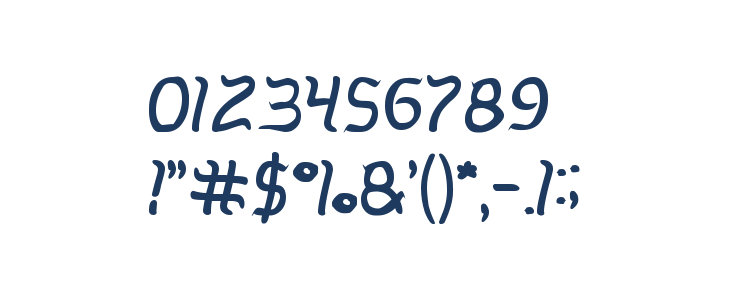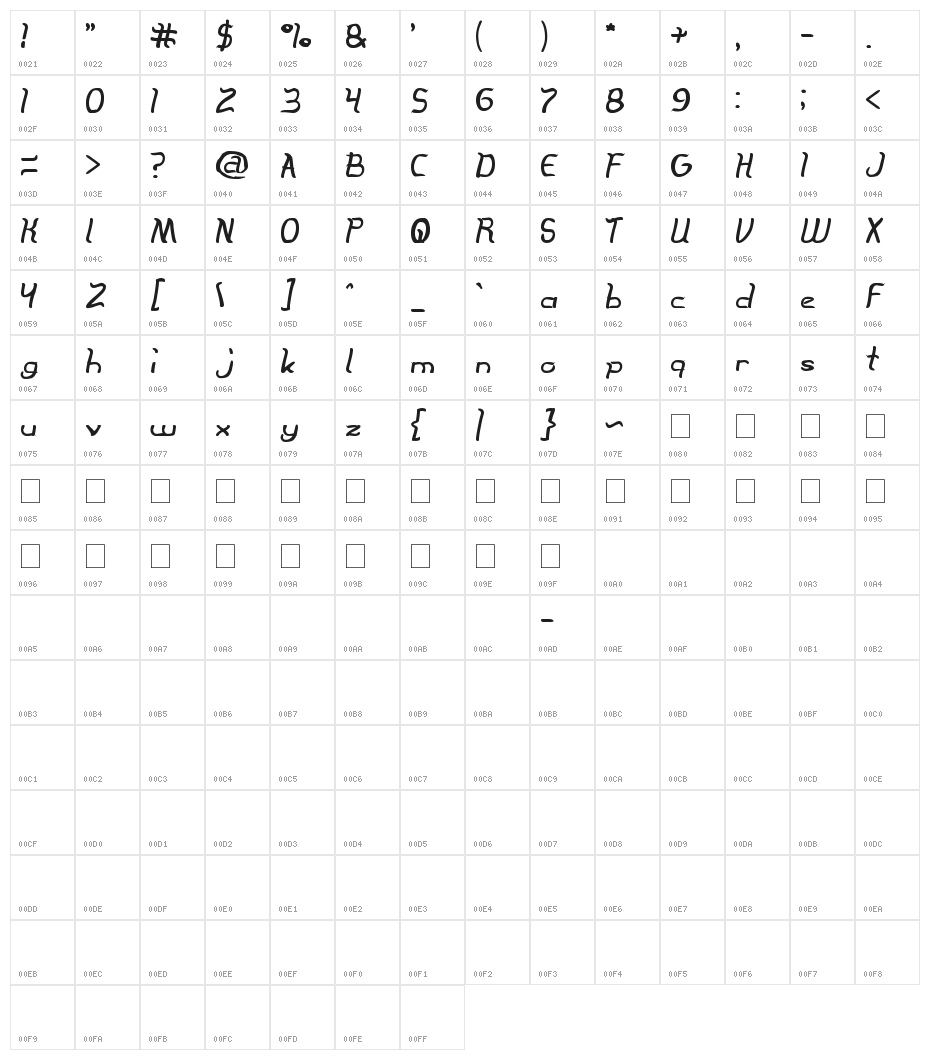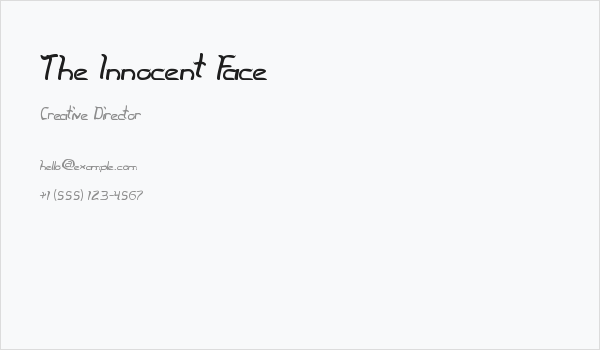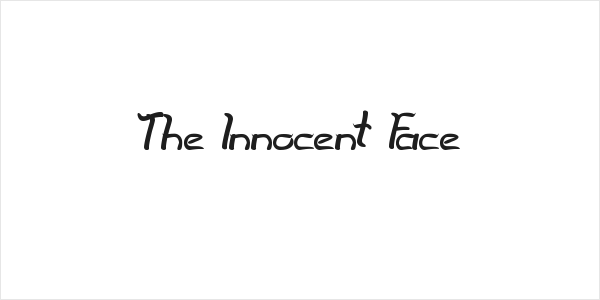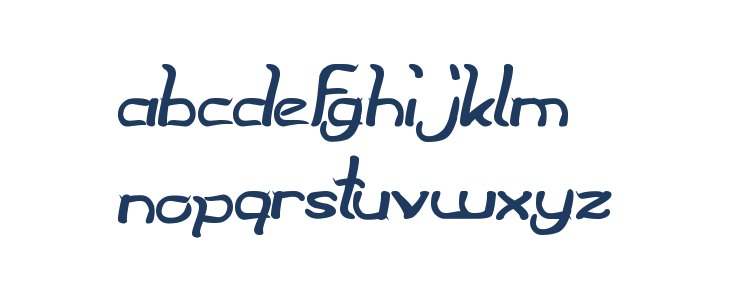
The Innocent Face Font
The Innocent Face Description
This playful and dynamic font features a handwritten style with a casual, flowing appearance. The letters are slightly slanted, giving a sense of movement and energy. The strokes are bold and rounded, with a consistent thickness that adds to its approachable and friendly character. The uppercase and lowercase letters maintain a cohesive look, while the numerals and special characters are designed to match the overall style. This font is perfect for projects that require a personal touch or a fun, informal vibe.